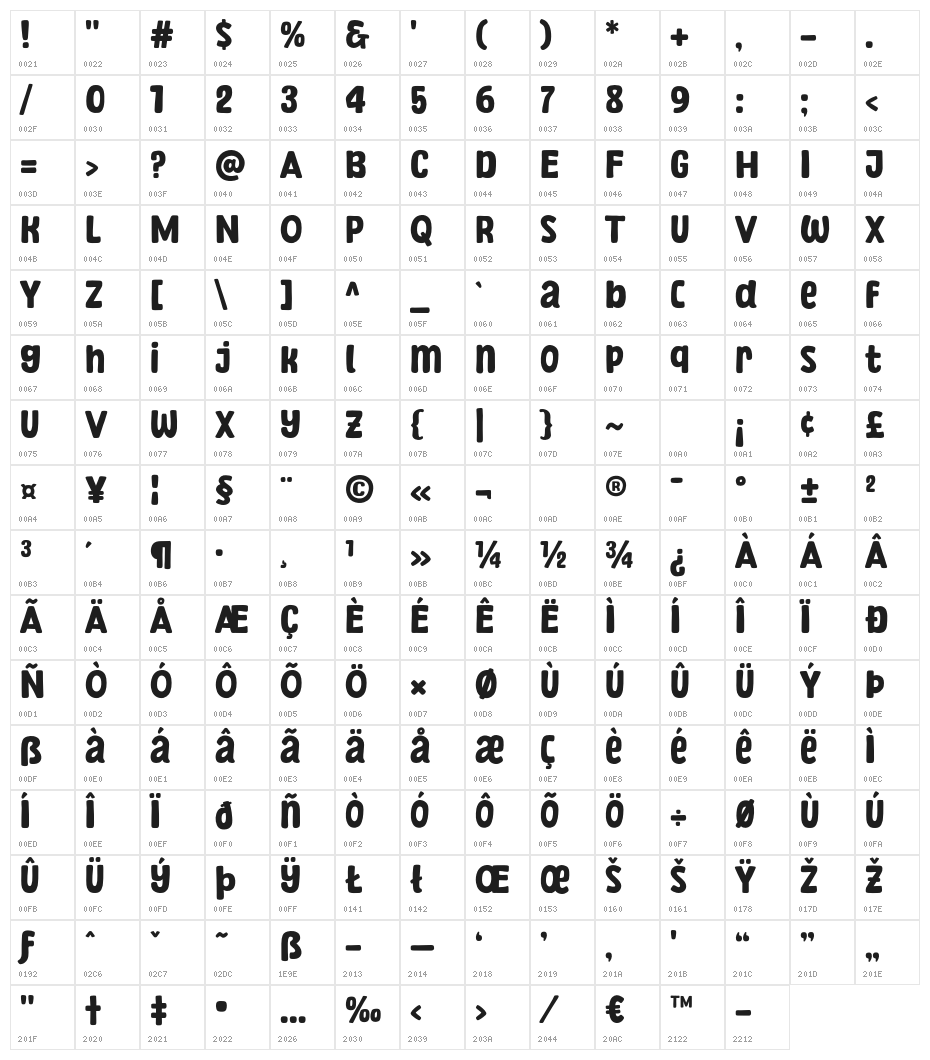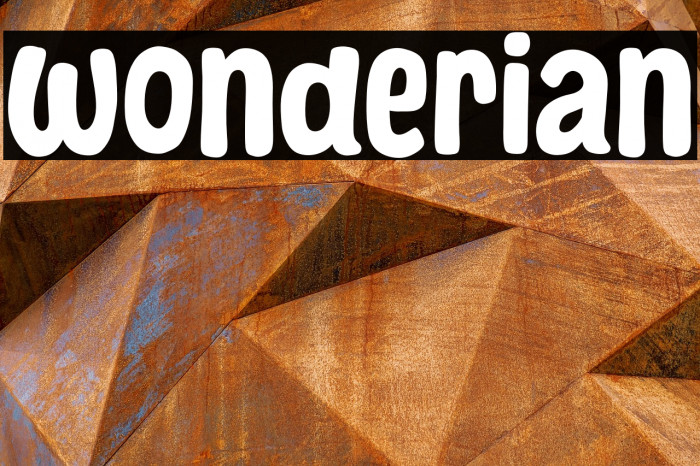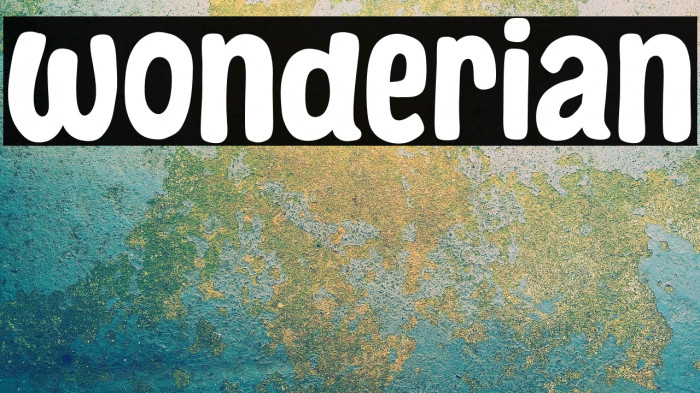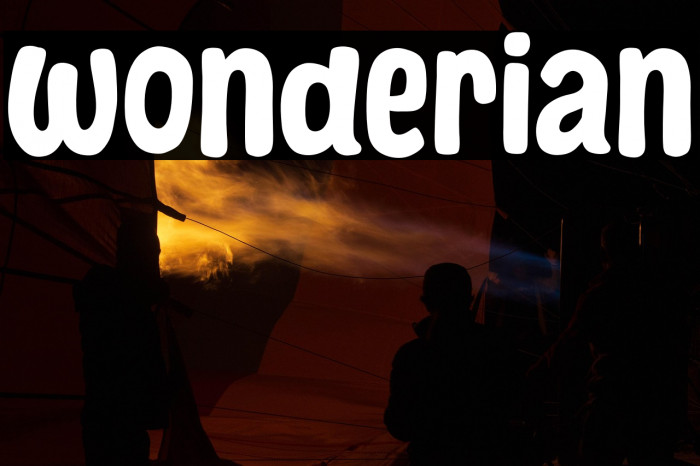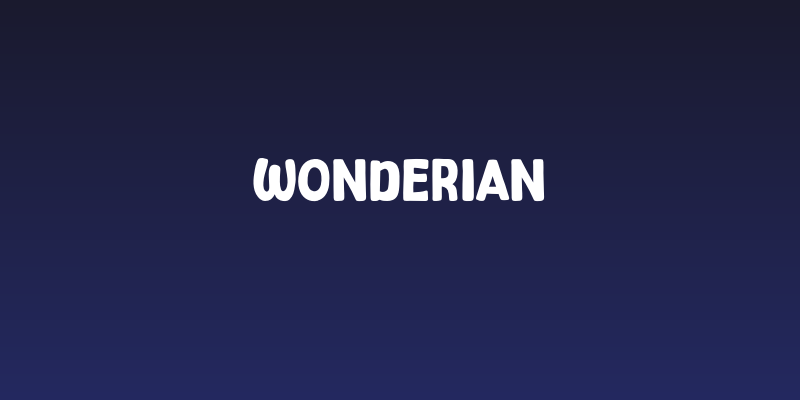
Wonderian Font
Wonderian Description
A bold, playful font with rounded edges and a slightly condensed appearance, suitable for eye-catching designs.
| Overall Style | Playful, Modern |
| Proposed Projects | Children's books, posters, playful branding. |